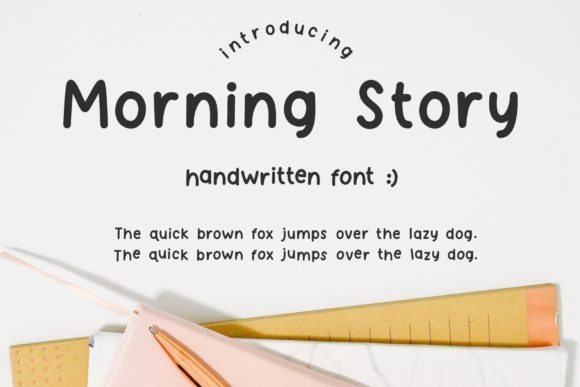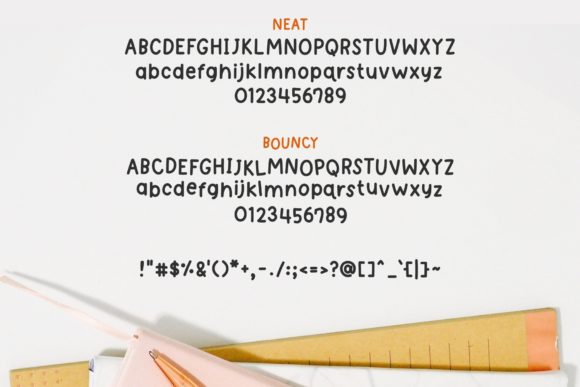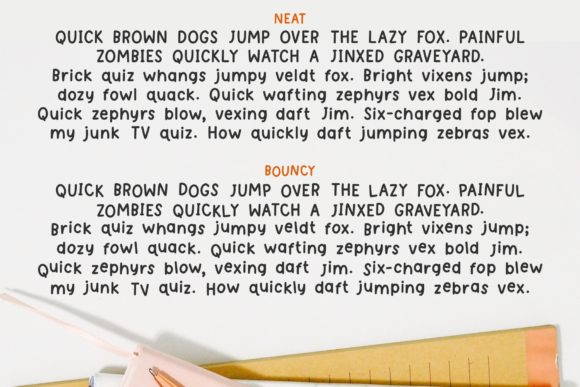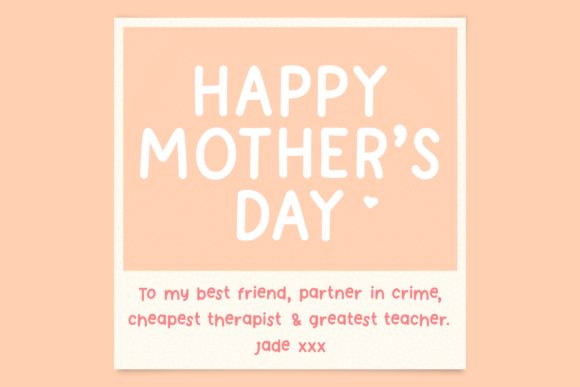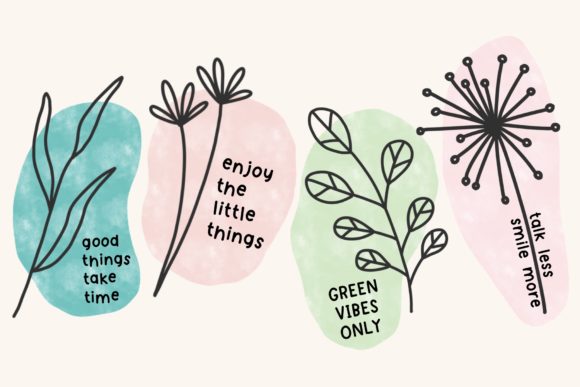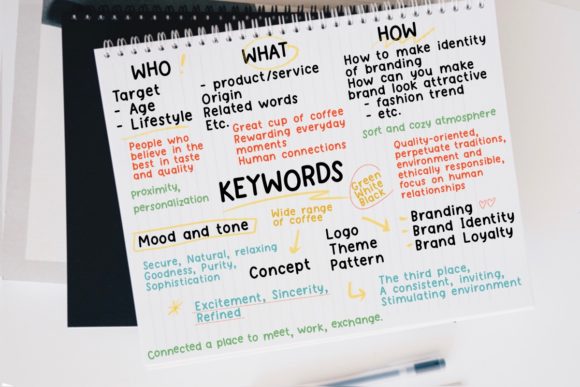
Morning Story Font
Morning Story is a simple, small and cute handwritten font. Warm, romantic and jolly, this font will turn each of your project ideas into real works of art. Have fun with this beautiful font and explore its endless variations.